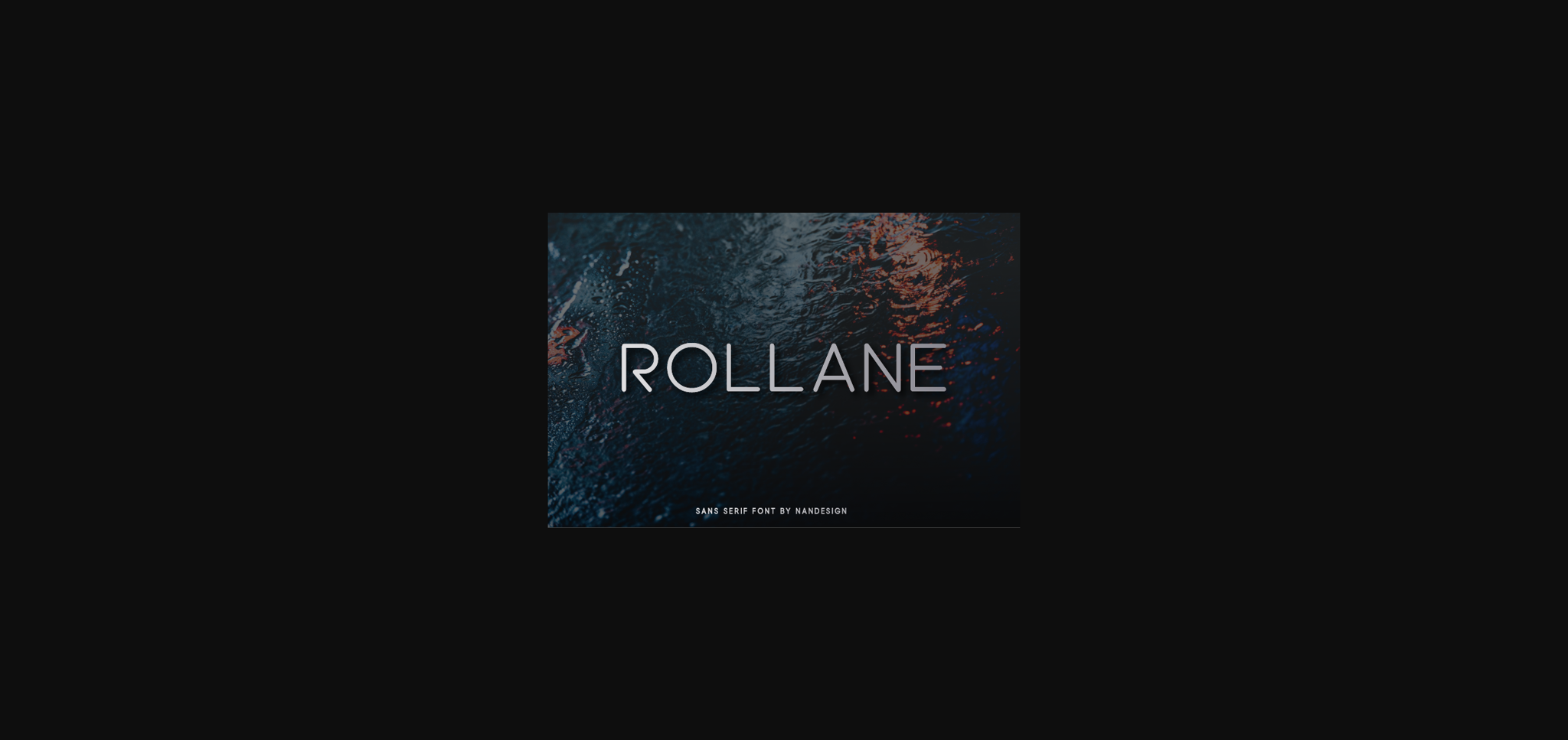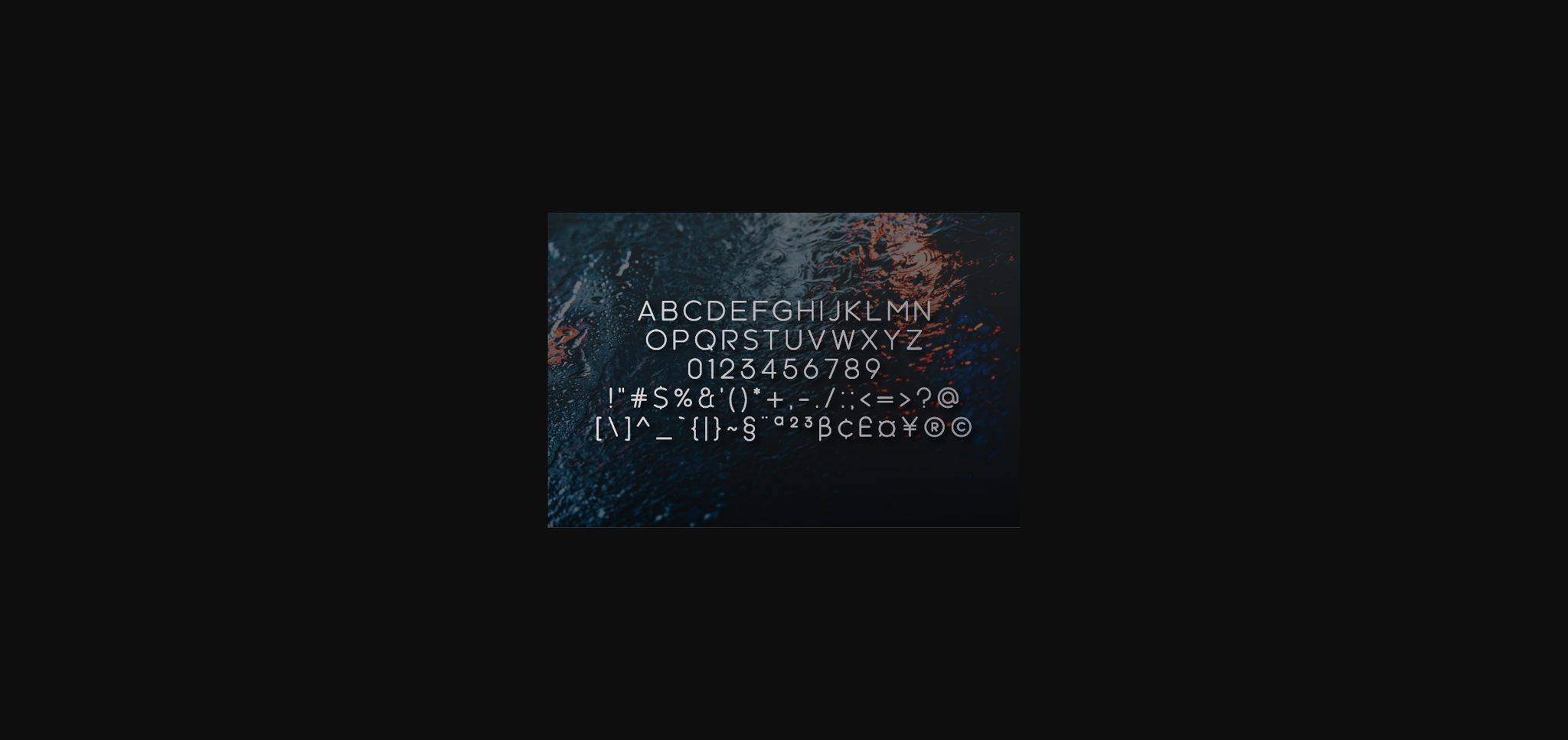
HomeSans Serif FontsRollane Font Sans Serif Fonts Rollane Font FacebookXPinterestWhatsApp 1 of 4 ... Rollane Font Poster 2... Rollane Font Poster 3... Rollane Font Poster 4... About Rollane Font Rollane is a simple and casual sans serif font with an undeniably clean feel. With its smooth and beautiful arrangement of letters, this typeface will fit in both formal and non-formal designs. DOWNLOAD NOW People also explored Able Lingo ASL 5 Font Party Kuller Font Zoothopia Font Christmas Line Font Open Heart Simple Marker Font MasterInk Font Better Restay Font Cartoonish Font 329 0 TagsRollaneRollane Font Previous articleWelchesa FontNext articleMounthana Font LEAVE A REPLY Cancel reply Comment: Please enter your comment! Name:* Please enter your name here Email:* You have entered an incorrect email address! Please enter your email address here Website: Save my name, email, and website in this browser for the next time I comment. Personal Use Free Krait Personal Use Free Read more about this font Carrolina Personal Use Free Read more about this font Krase Personal Use Free Read more about this font Ashay Personal Use Free Read more about this font BLOG Free Fonts Risk: Why Free Fonts Can Be Dangerous for Designers Free Fonts Risk: Why Free Fonts Can Be Dangerous for Designers Using free fonts is a common practice in web and graphic design. However, the... Where to Buy American Fonts Online in 2024 How to Install and Use Fonts on Windows, macOS, and Web Projects Free vs Paid Fonts: Why Investing in Premium Fonts Is Worth It